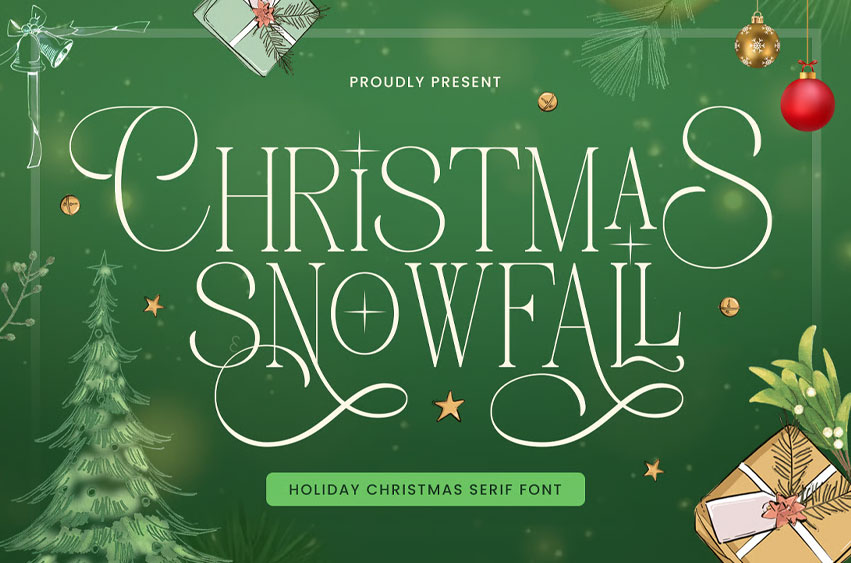
Christmas Snowfall Font
Christmas Snowfall Font is a festive display font designed to bring warmth, elegance, and joyful holiday spirit into your creative projects. Featuring beautiful swash tails and playful letterforms, this font captures the magical feeling of a snowy Christmas morning while adding a unique decorative touch to every design.
Crafted with a charming and cheerful style, Christmas Snowfall combines festive personality with smooth readability. The decorative swashes create an elegant flowing appearance, making each word feel more stylish, cozy, and eye-catching. Its balance of cute and classy aesthetics makes it suitable for both playful and sophisticated holiday creations.
This font is perfect for Christmas and winter-themed projects, while also working beautifully for holiday invitations, greeting cards, seasonal branding, gift packaging, party decorations, and social media graphics. The festive swash details instantly make designs feel more magical and memorable.
Christmas Snowfall is ideal for a wide range of creative applications including posters, mugs, stickers, wall art, product packaging, gift tags, and holiday merchandise. Its decorative style helps your designs stand out while maintaining a warm and friendly atmosphere.
Key Features Festive Swash Style
Decorative swash tails that create elegant and playful typography.
Cute & Magical
Designed to capture the cozy and joyful feeling of Christmas.
Stylish & Readable
Beautiful decorative details while remaining easy to read.
Versatile Holiday Font
Perfect for festive, seasonal, and creative design projects.